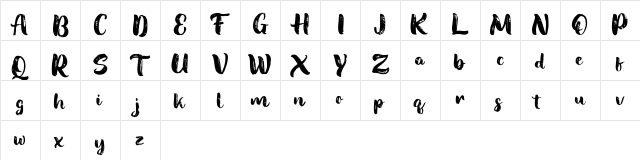
Soondae Font Texture FREE Regular
Design Context for Soondae Font Texture FREE Typeface
Soondae Font Texture FREE trades polish for personality, using distressed and eroded forms to bring grit and attitude to creative work.
Suited to punk-influenced zines, underground music branding, streetwear, and raw, anti-corporate design.